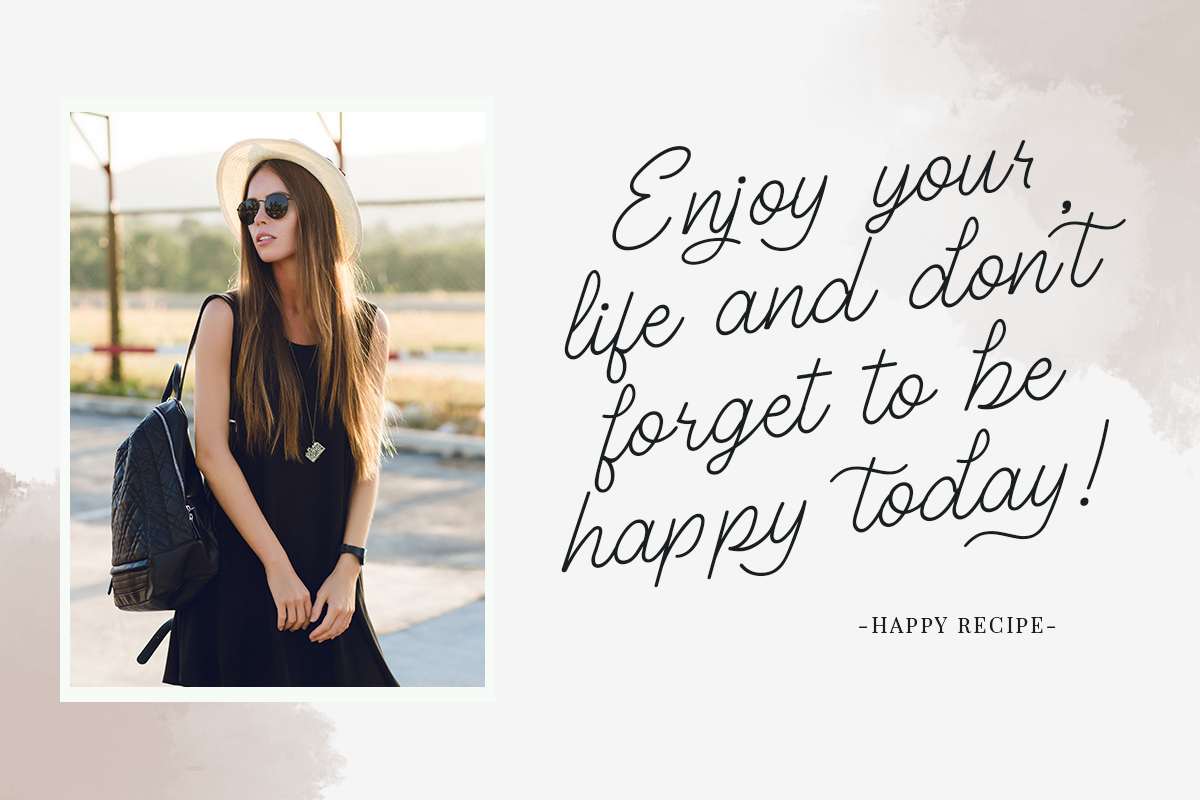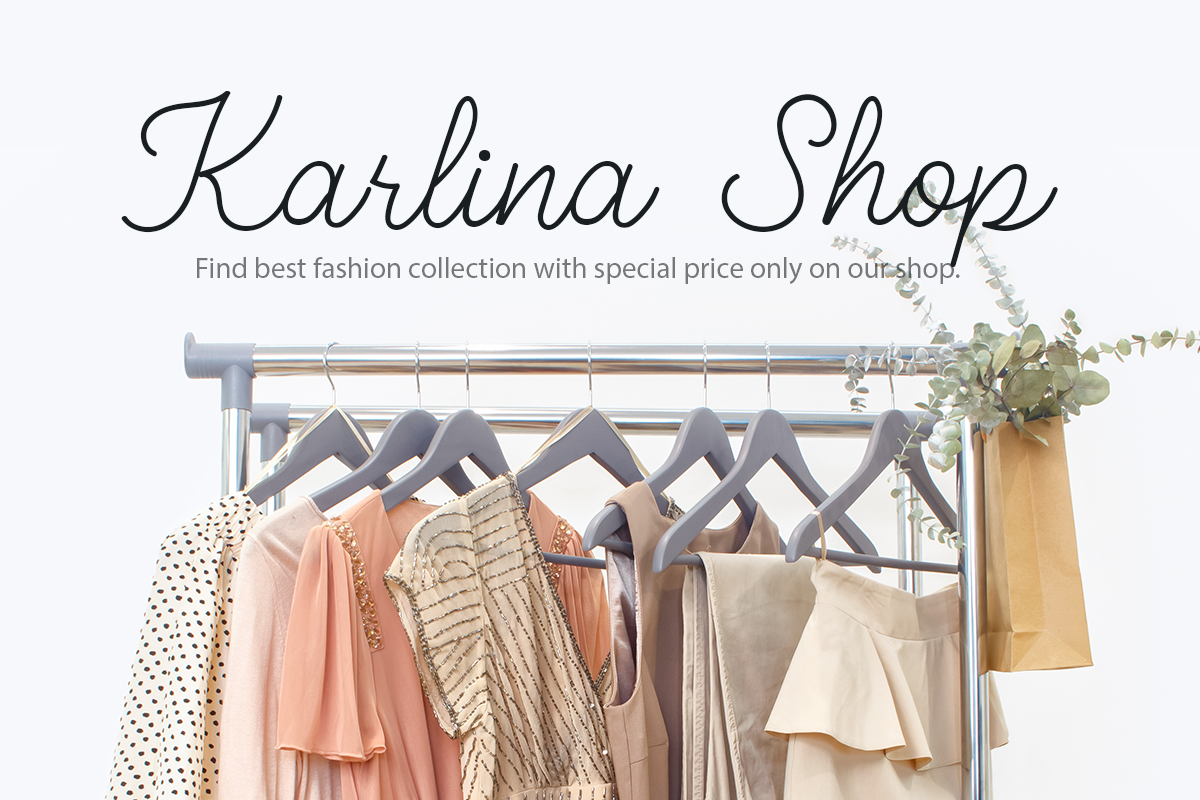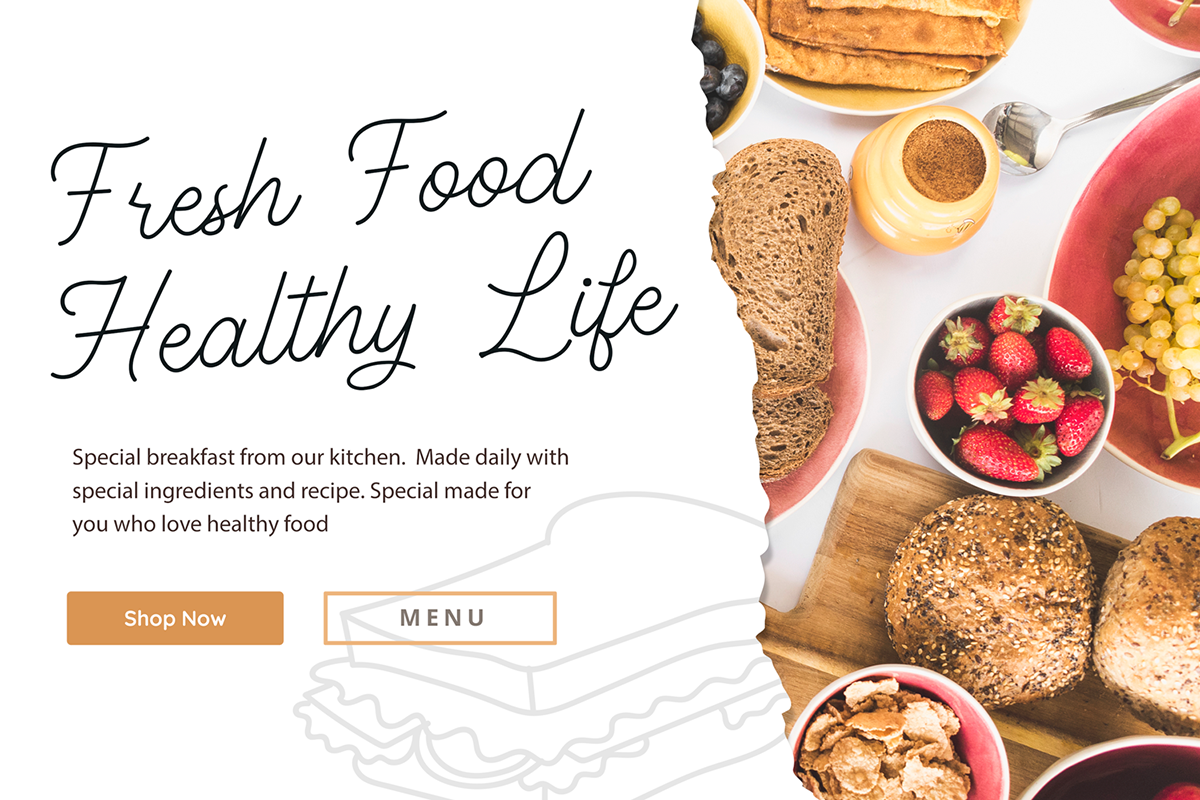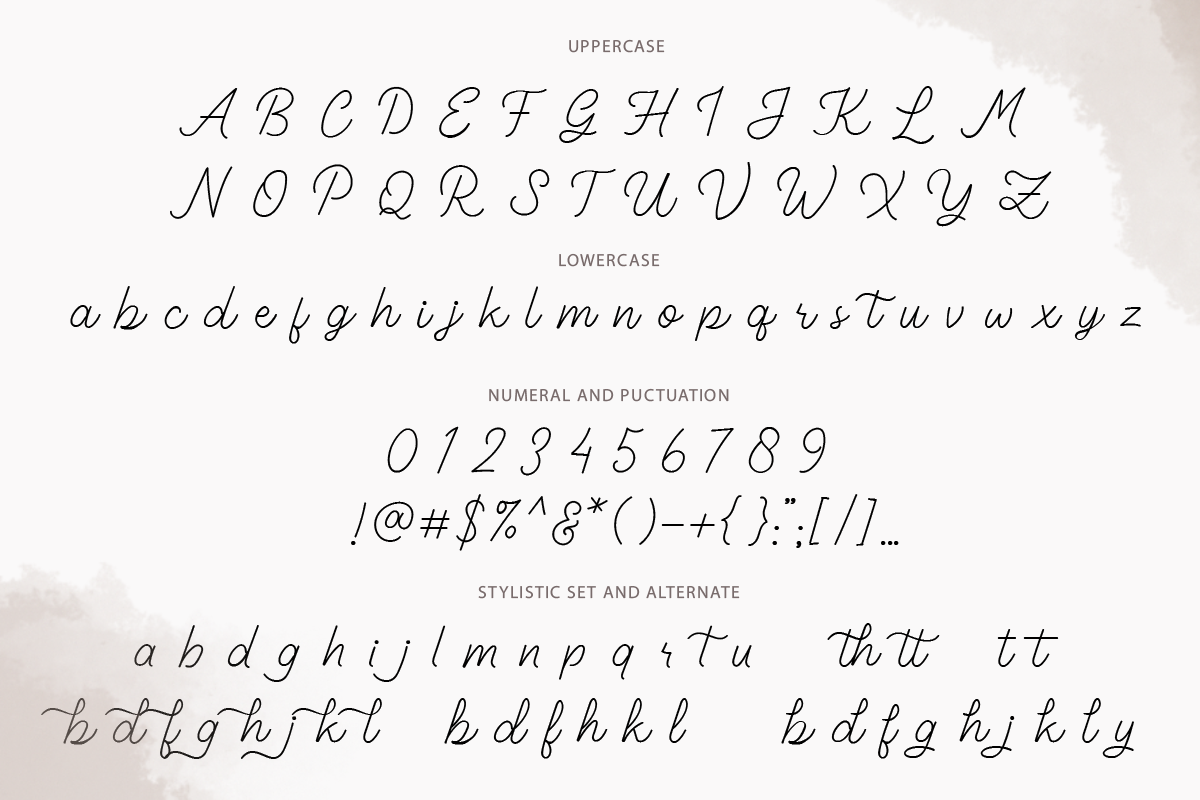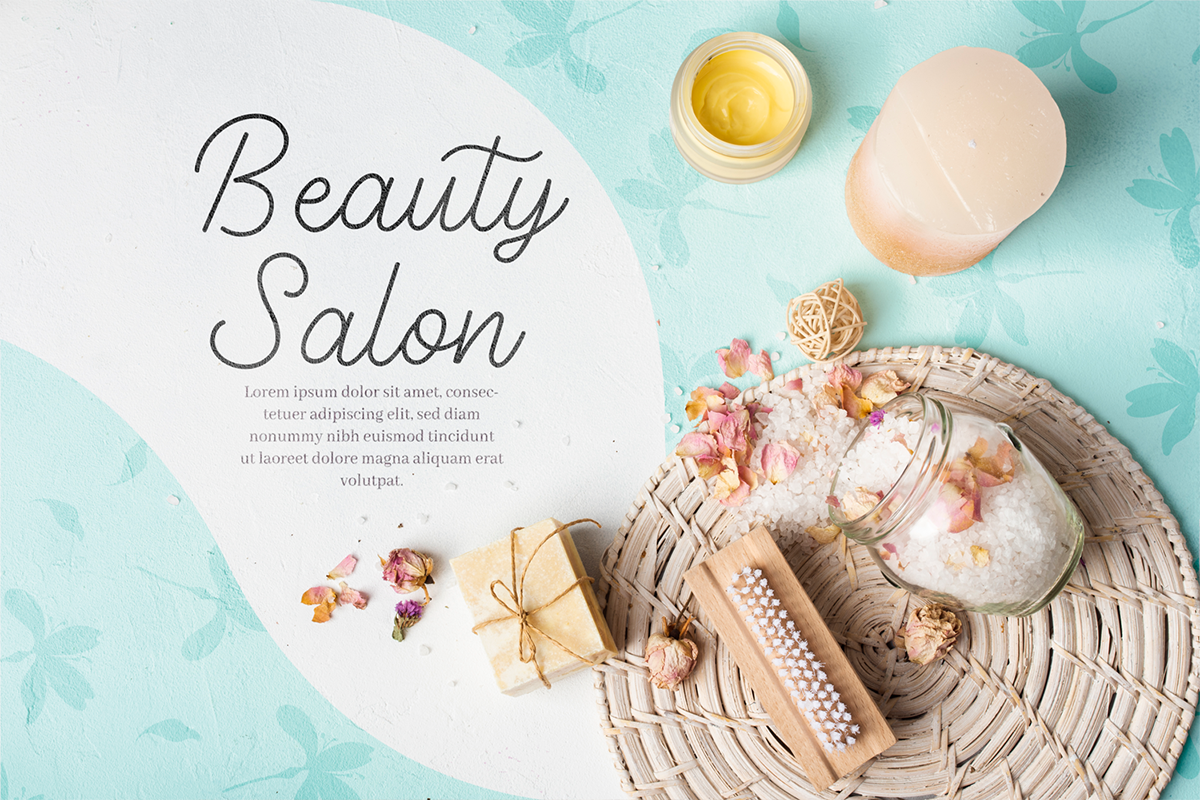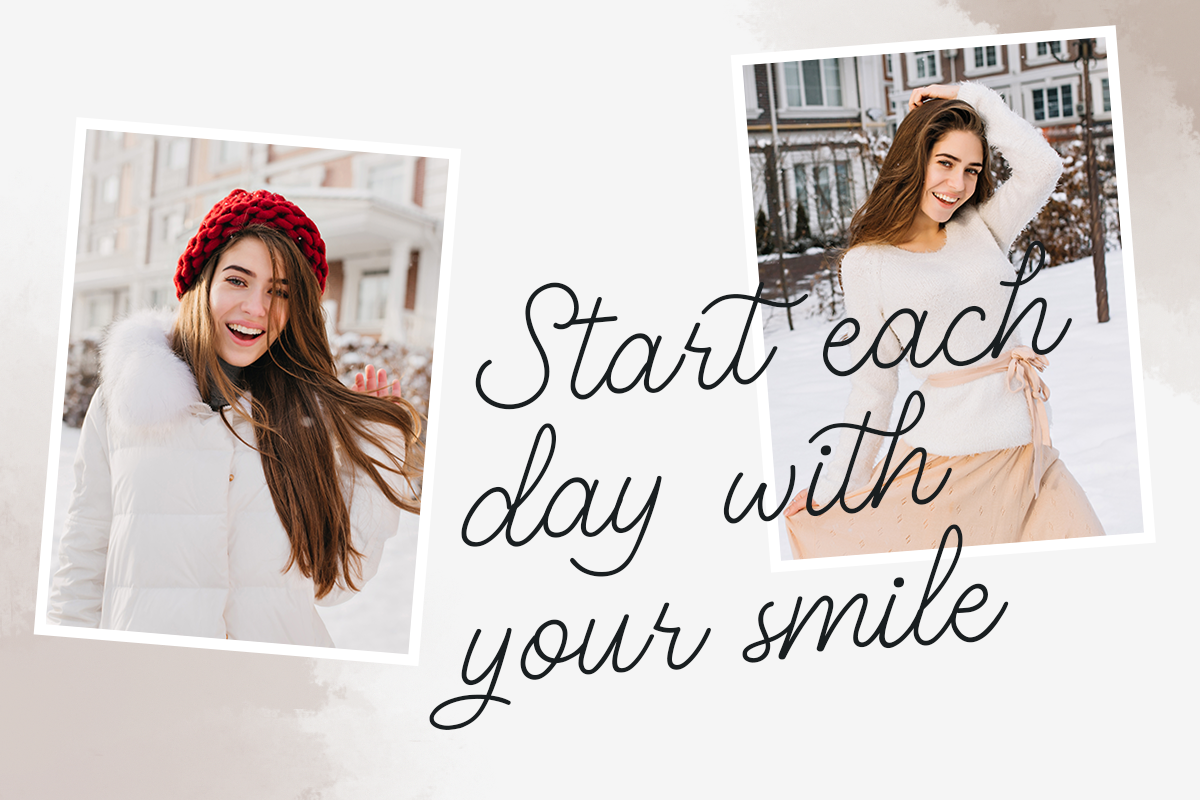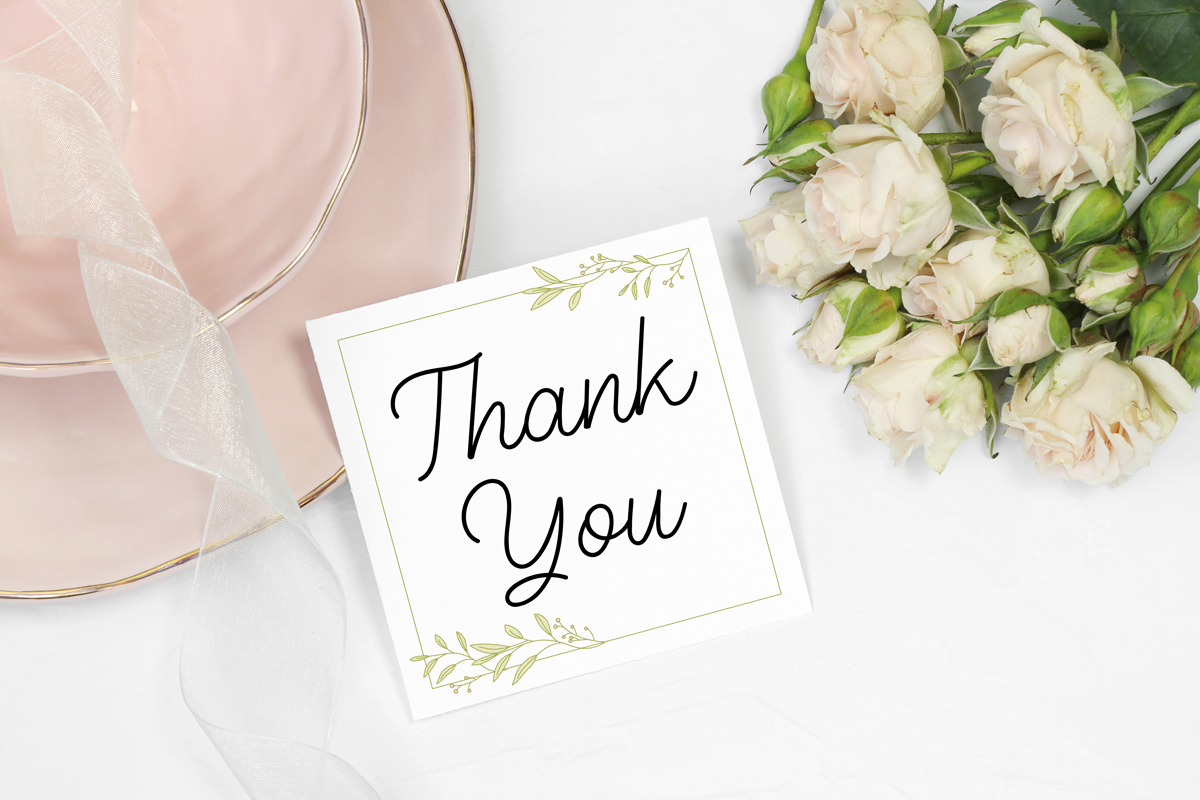
Young Spirit Handwriting Script
Young Spirit is handwriting font with elegant and classy looks. This font will be suitable for projects such as branding design projects, logo, wedding designs, social media posts, advertisements, product packaging, product designs, label, photography, watermark, invitation, stationery and any projects that need handwriting taste